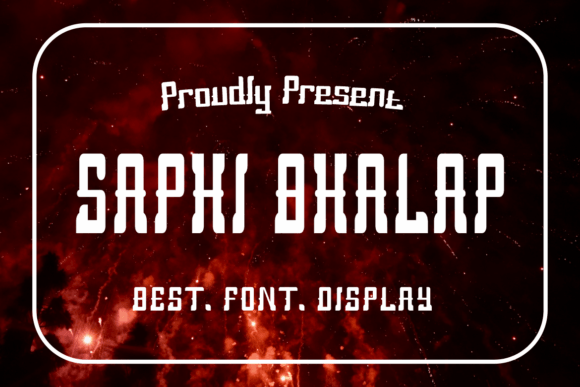
Journey through the untamed frontier of design with Saphi Bhalap, the font that captures the spirit of the Wild West! Embrace the rugged charm and raw power of this slab serif font, crafted with meticulous detail to evoke the essence of adventure and exploration. Whether you're a seasoned designer or just starting your creative expedition, Saphi Bhalap is your trusty steed, ready to carry your designs to new horizons.
Unleash your inner gunslinger and create captivating logos that pack a punch like a well-aimed shot. Its bold and assertive strokes command attention, ensuring your designs hit the mark every time. Let your imagination run wild and create posters that transport viewers to a time of cowboys, sheriffs, and outlaws. Saphi Bhalap's authentic charm will make your designs sizzle like a hot desert sun, leaving a lasting impression on all who behold them.
Harness the versatility of Saphi Bhalap and explore uncharted territories of design. Its sturdy structure and unwavering presence make it an ideal choice for t-shirt printing. Imagine your designs adorning the chests of adventurers, proudly displaying their love for the untamed spirit of the Wild West. The font's rugged charm will add an air of authenticity to your creations, making them instant favorites among those who appreciate the beauty of the untamed frontier.
Dive into the dynamic world of esports and let Saphi Bhalap lead your charge to victory. Its bold and commanding presence will make your team's logo stand out in the arena of digital combat. Create captivating overlays and graphics that ignite the passion of gamers and leave a lasting mark on the world of esports. With Saphi Bhalap as your ally, you'll conquer new frontiers and leave your opponents in the dust.
Saphi Bhalap is more than just a font; it's a gateway to a world of boundless creativity. Its rugged beauty and unwavering strength will empower you to craft designs that resonate with the spirit of the Wild West. So, saddle up, pardner, and let Saphi Bhalap guide you on an extraordinary design adventure. The frontier awaits, and it's time to leave your mark!